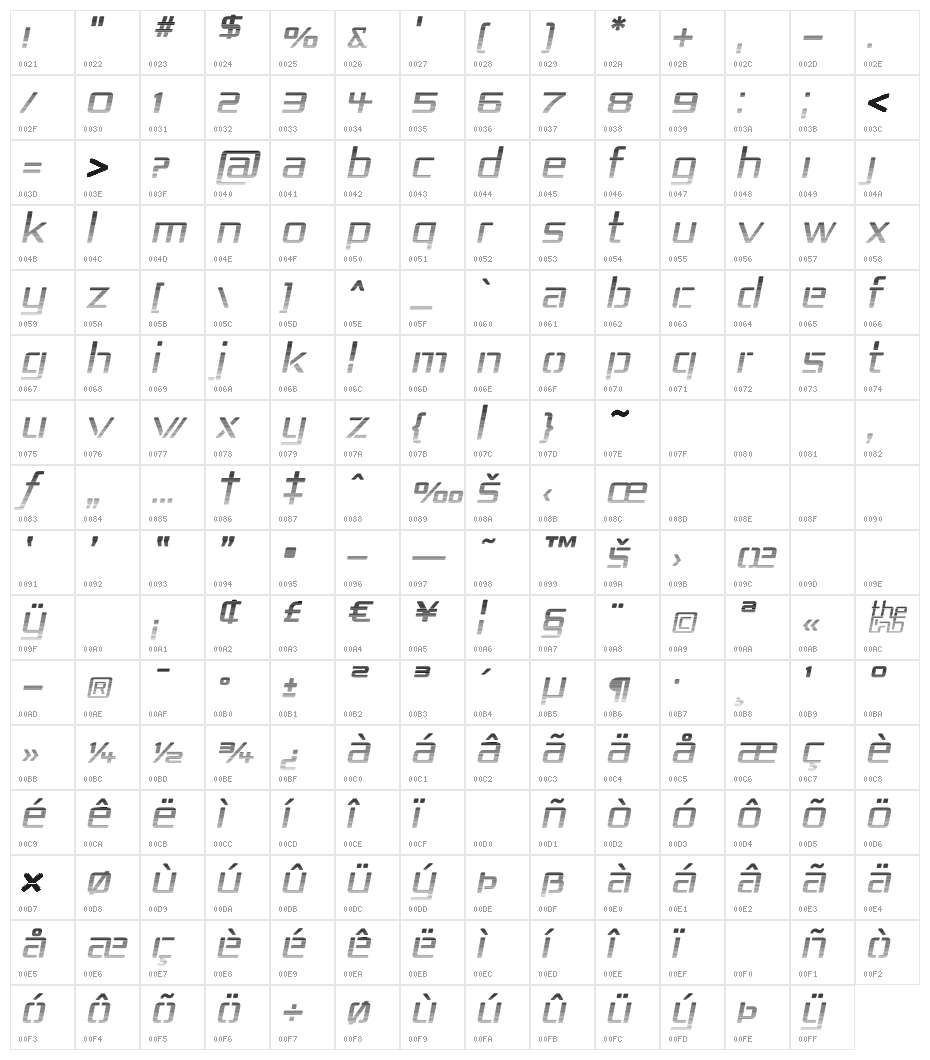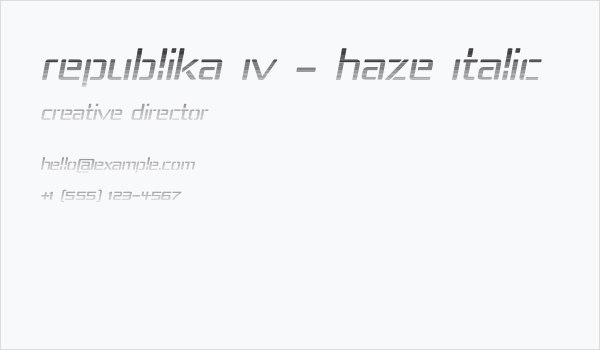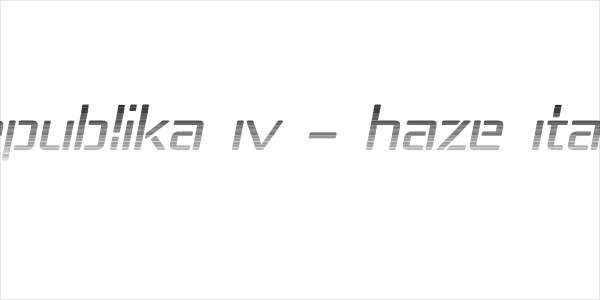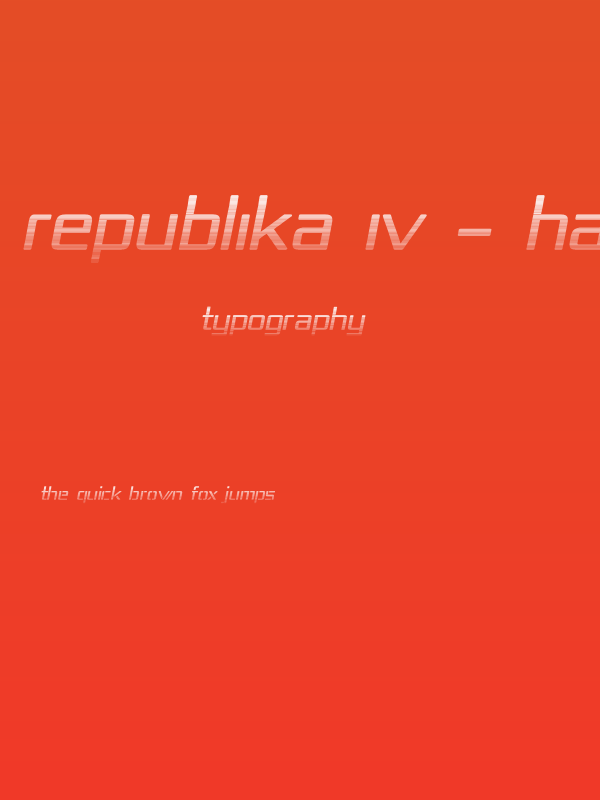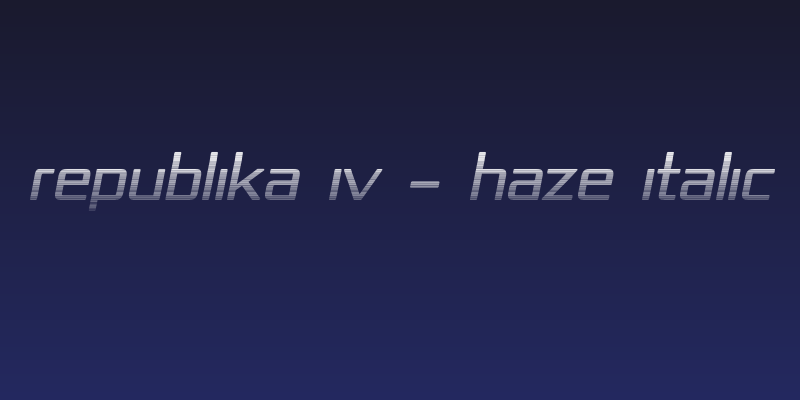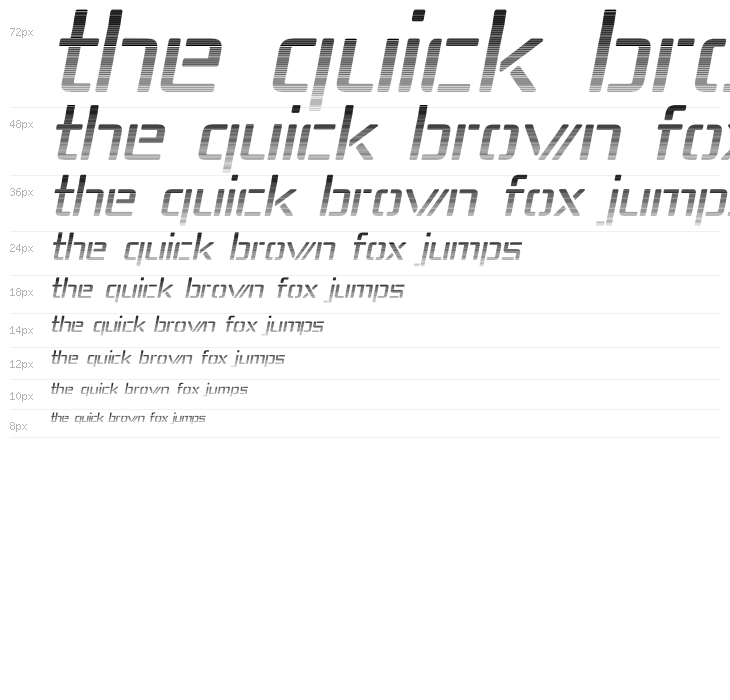
Republika IV - Haze Italic Font
Republika IV - Haze Italic Description
This font features a modern, futuristic design with a sleek, italicized style. The characters are constructed with a combination of solid and striped patterns, giving them a dynamic, digital appearance. The angular lines and sharp edges contribute to a sense of speed and movement, making it ideal for tech-oriented projects. The uppercase and lowercase letters maintain a consistent geometric structure, while the numerals and special characters complement the overall aesthetic. The font's unique style is both eye-catching and versatile, suitable for various creative applications.
Overall StyleFuturistic
Use CaseHeadlines, Logos, Digital Media
Proposed ProjectsIdeal for tech branding, digital media, video game titles, and futuristic-themed designs.